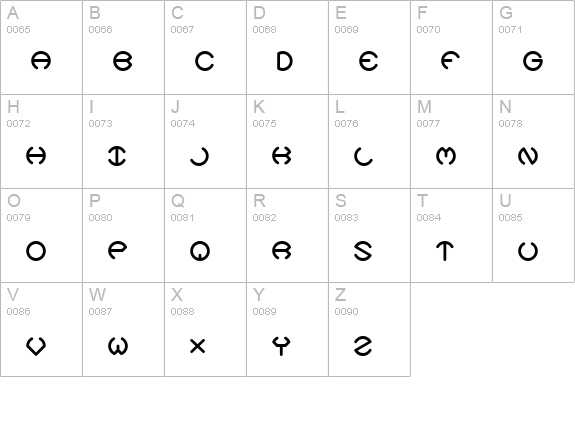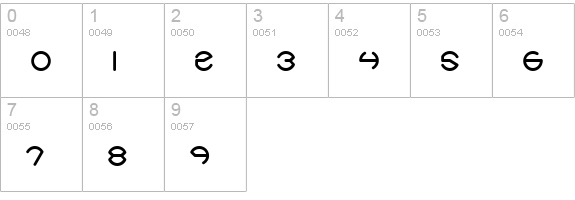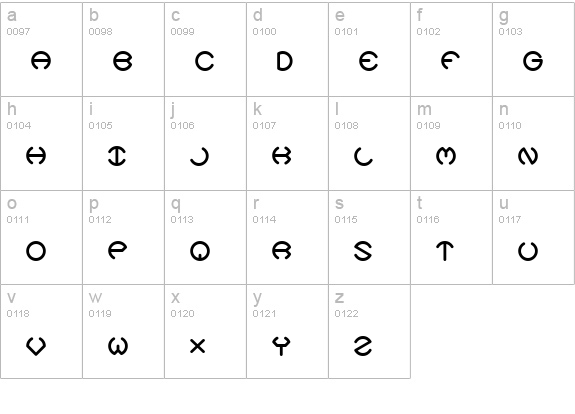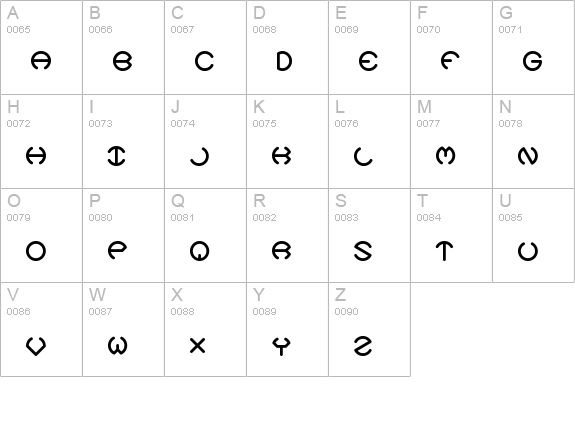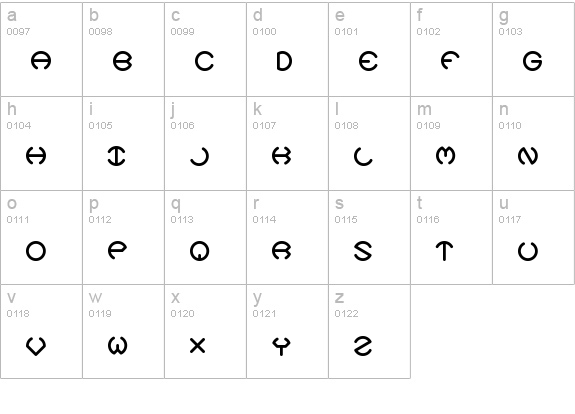
Spheroids X BRK font is a stunning and innovative typeface that is sure to captivate and inspire. With its sleek and futuristic design, this font combines the perfect balance of modernity and elegance. What sets Spheroids X BRK font apart is not only its striking visual appeal, but also its versatility. Whether you are designing a logo, creating eye-catching headlines, or crafting a unique branding concept, this font will undoubtedly elevate your creative projects to new heights. One of the most remarkable features of Spheroids X BRK font is its ability to seamlessly blend into various design styles. From tech-inspired projects to fashion-forward layouts, this font effortlessly adapts and enhances any visual composition it is a part of. The rounded edges and smooth curves of Spheroids X BRK font exude a sense of sophistication and forward-thinking. Its clean and readable characters make it an ideal choice for both digital and print media. The best part? Spheroids X BRK font is available for free! You can easily download this exceptional typeface at FontsMarket.com, where you will find a vast collection of high-quality fonts to suit all your design needs. So why wait? Take your designs to the next level with Spheroids X BRK font and let your creativity shine. Download it for free today and unlock a world of endless possibilities.